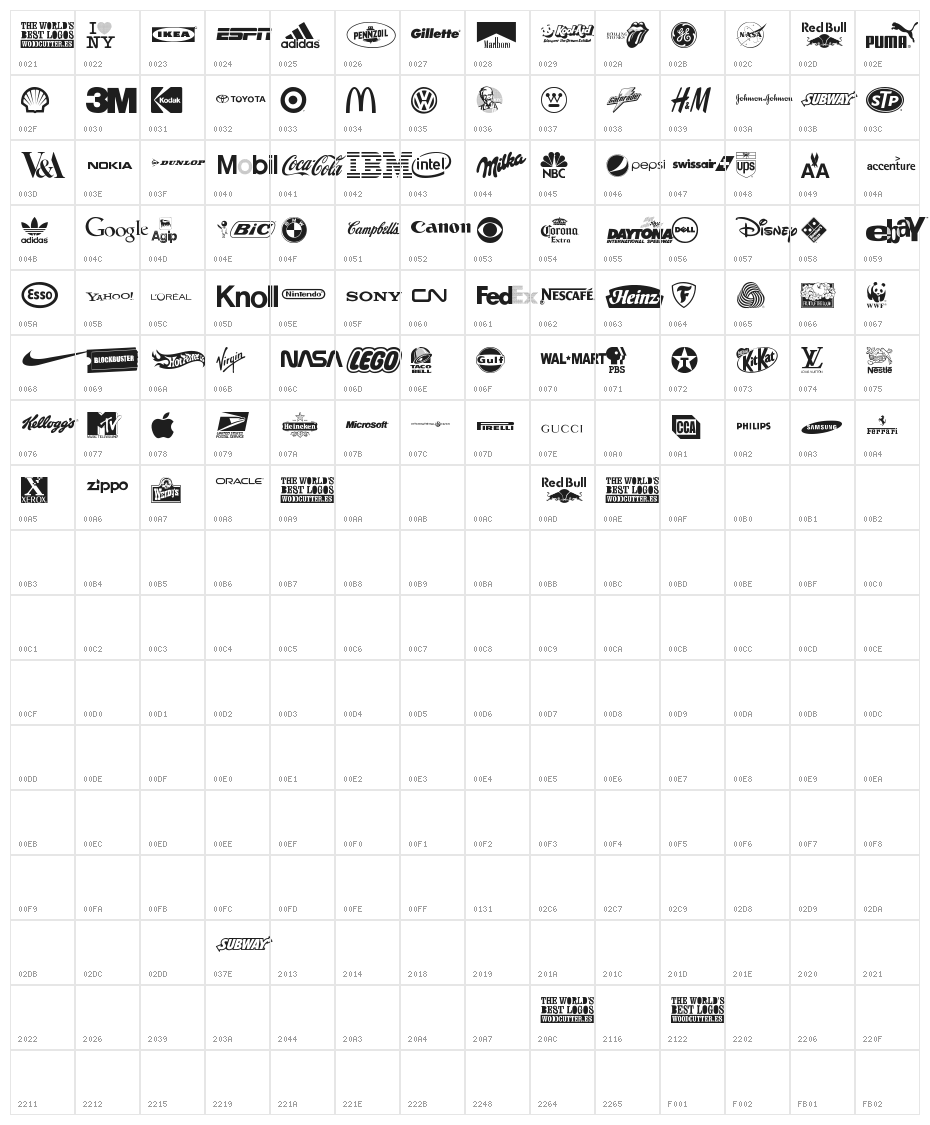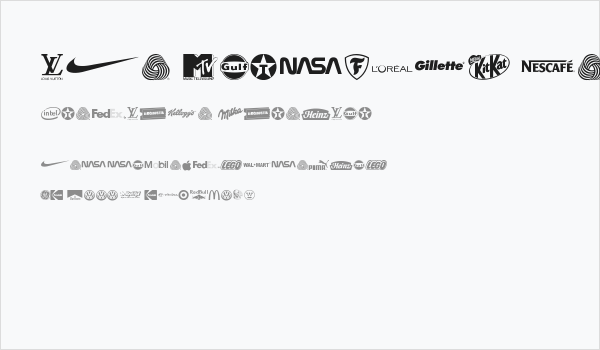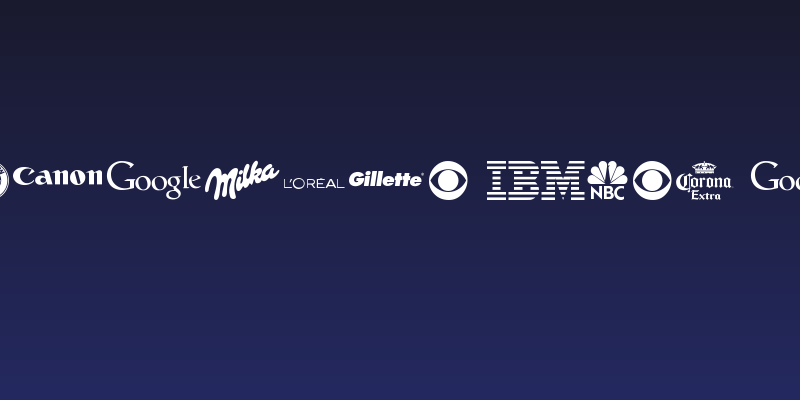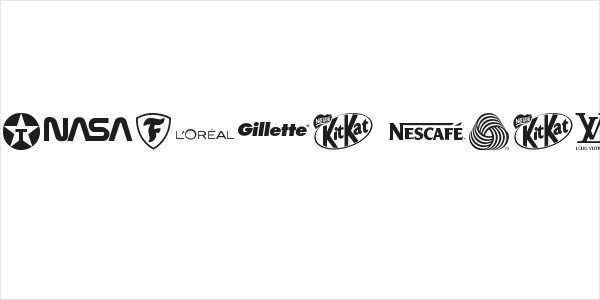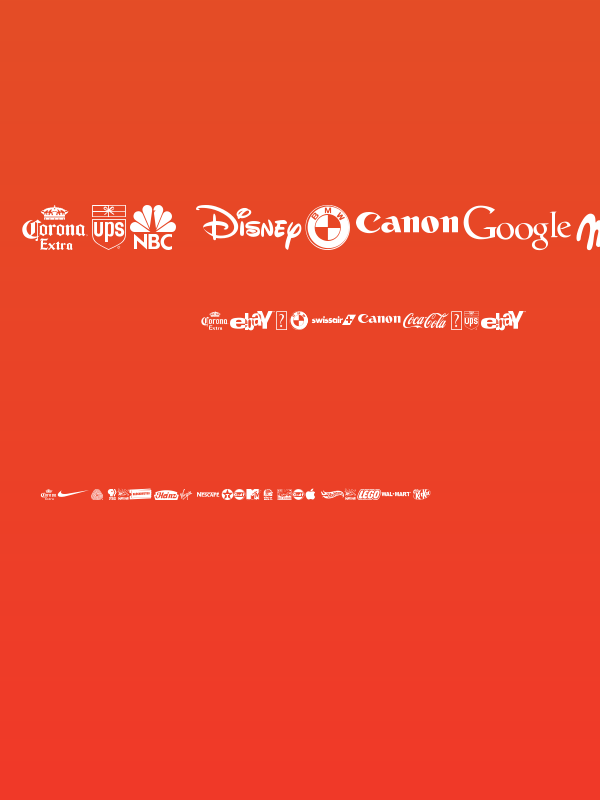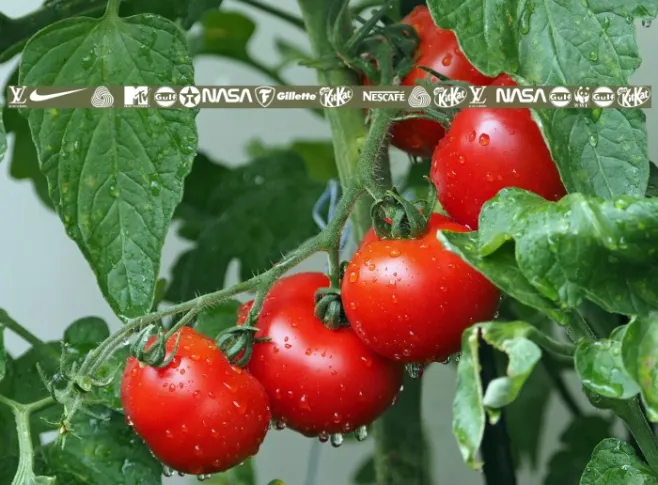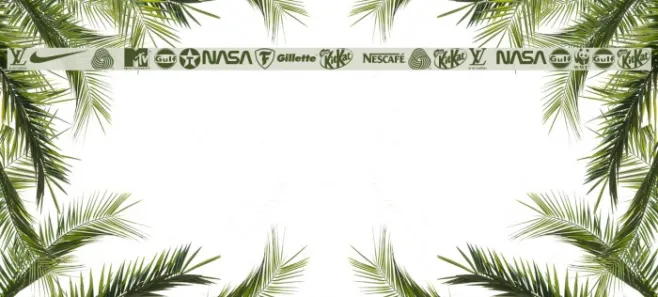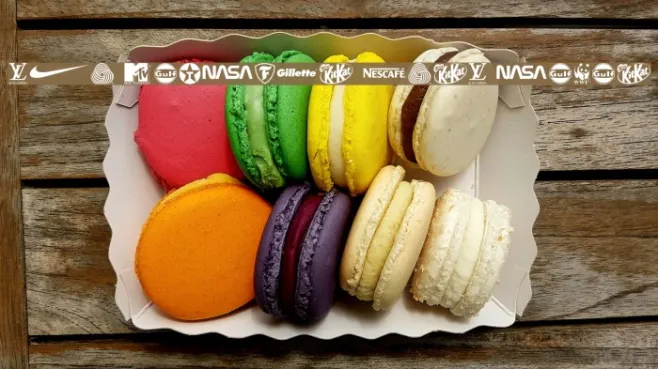
the world's best logos Font
the world's best logos Description
This image is a collage of various iconic brand logos, each using distinct custom or proprietary typefaces and graphic elements, rather than a single cohesive font. The logos feature a wide range of typographic styles, including serif, sans-serif, script, and decorative elements, often combined with unique graphic symbols or logomarks.
| Overall Style | Diverse, ranging from modern to vintage and decorative. |
| Use Case | Logo design, branding, advertising. |
| Proposed Projects | Branding studies, logo inspiration boards, marketing presentations, design history analysis. |